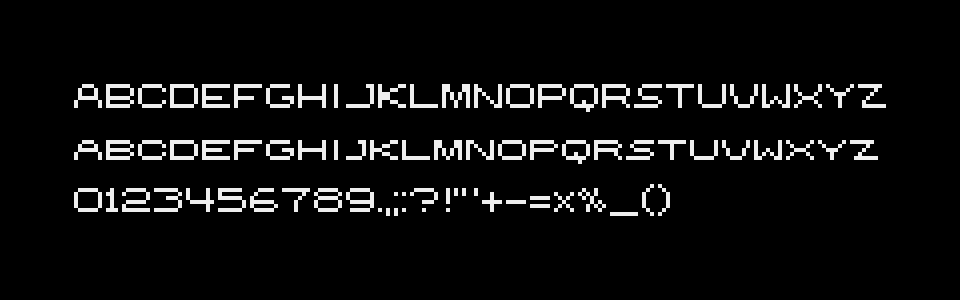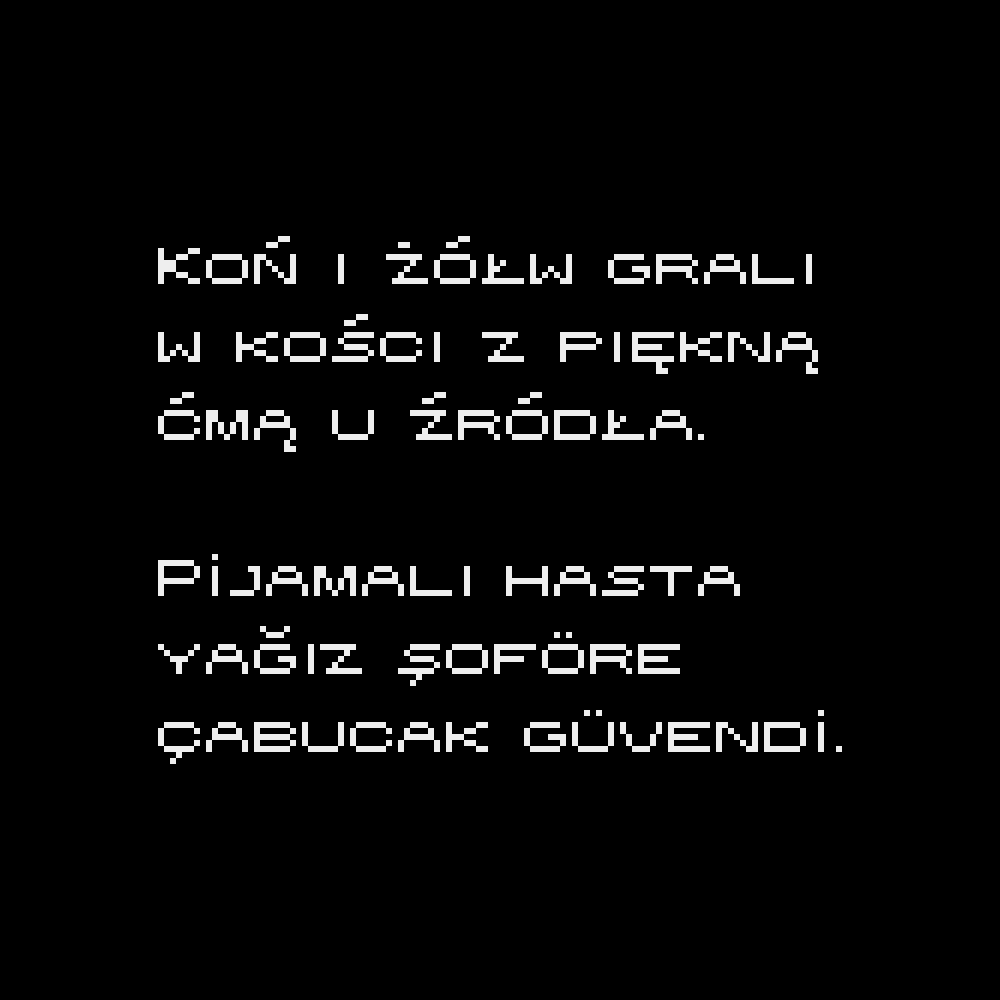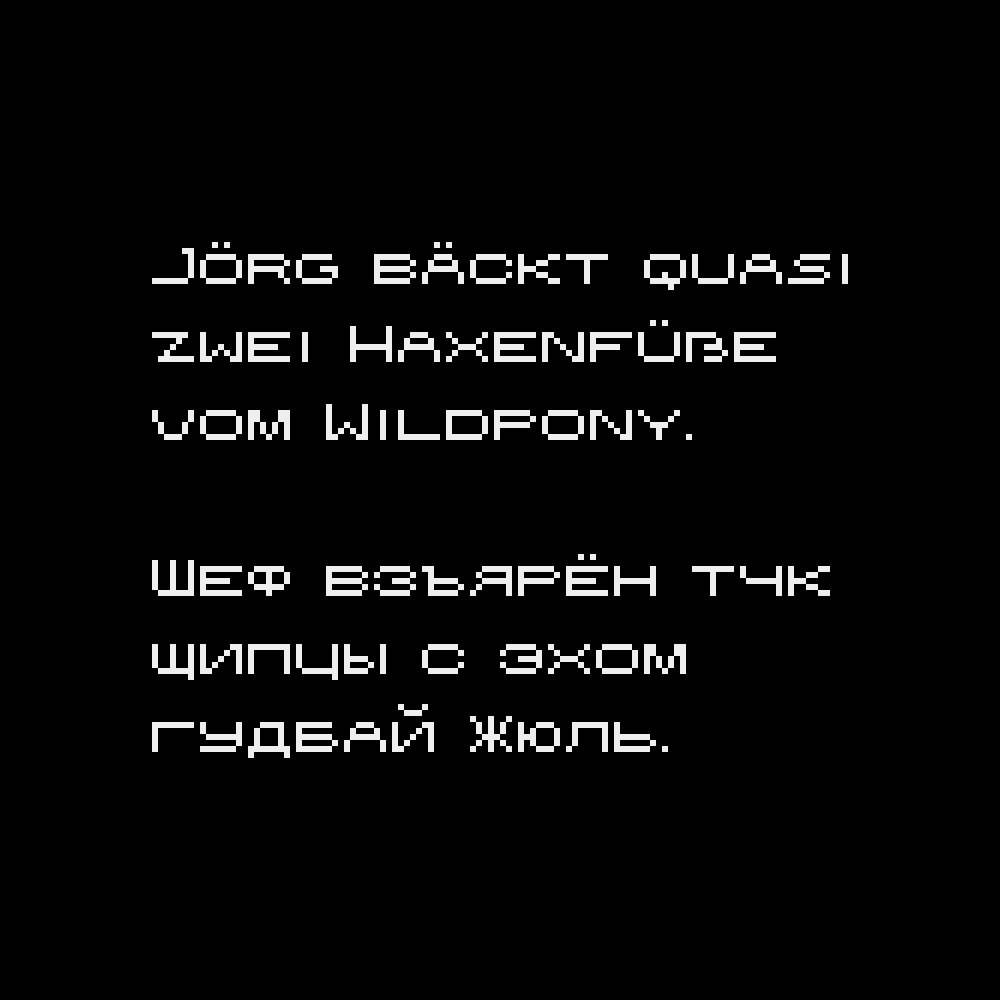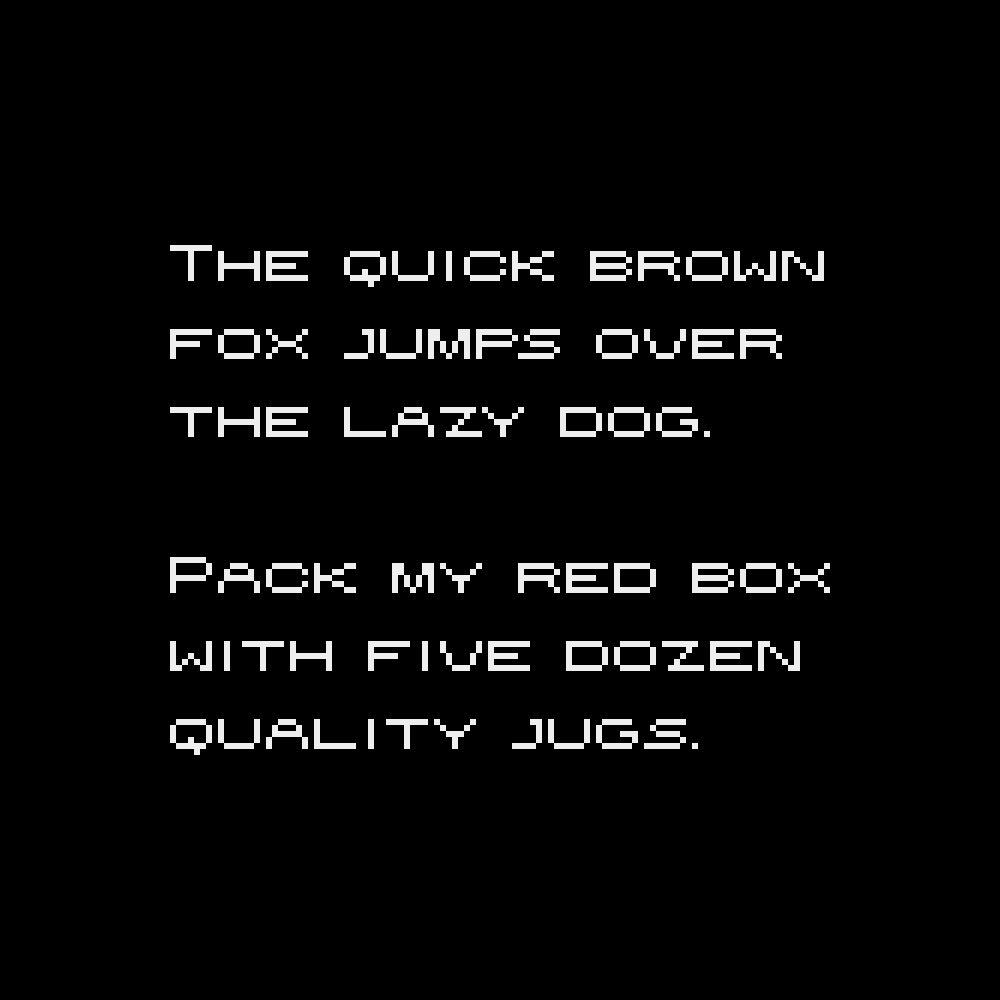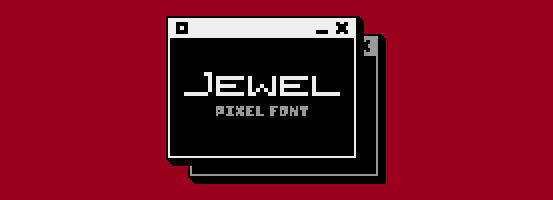
Pixel Font - JEWEL
A downloadable pixel font
Jewel is a small-scale, smallcaps, 6px tall pixel font!
Supported languages:
English, French, Italian, German, Spanish, Portuguese, Danish, Swedish, Norwegian, Icelandic, Hungarian, Polish, Turkish*, Russian, Ukrainian…